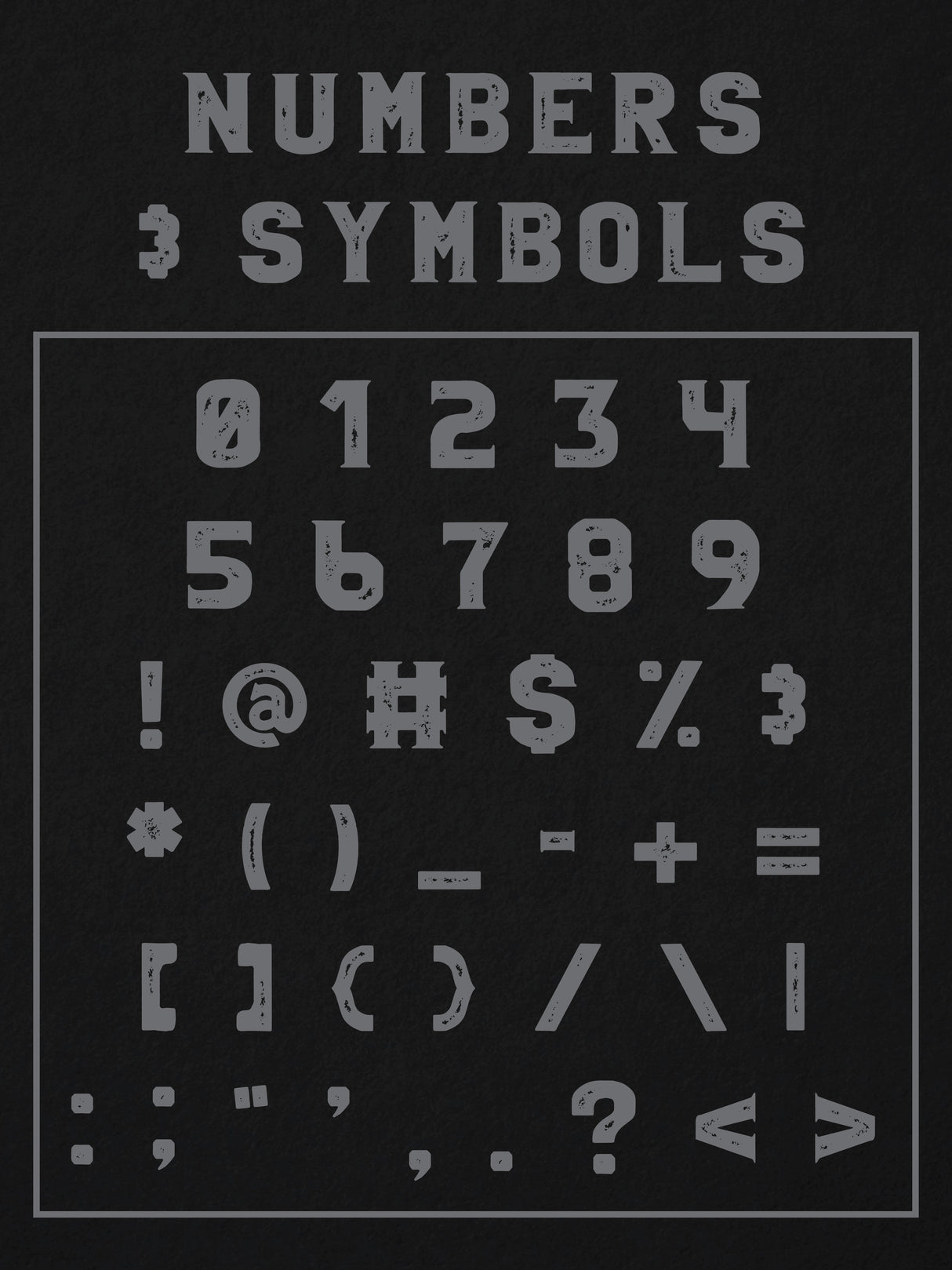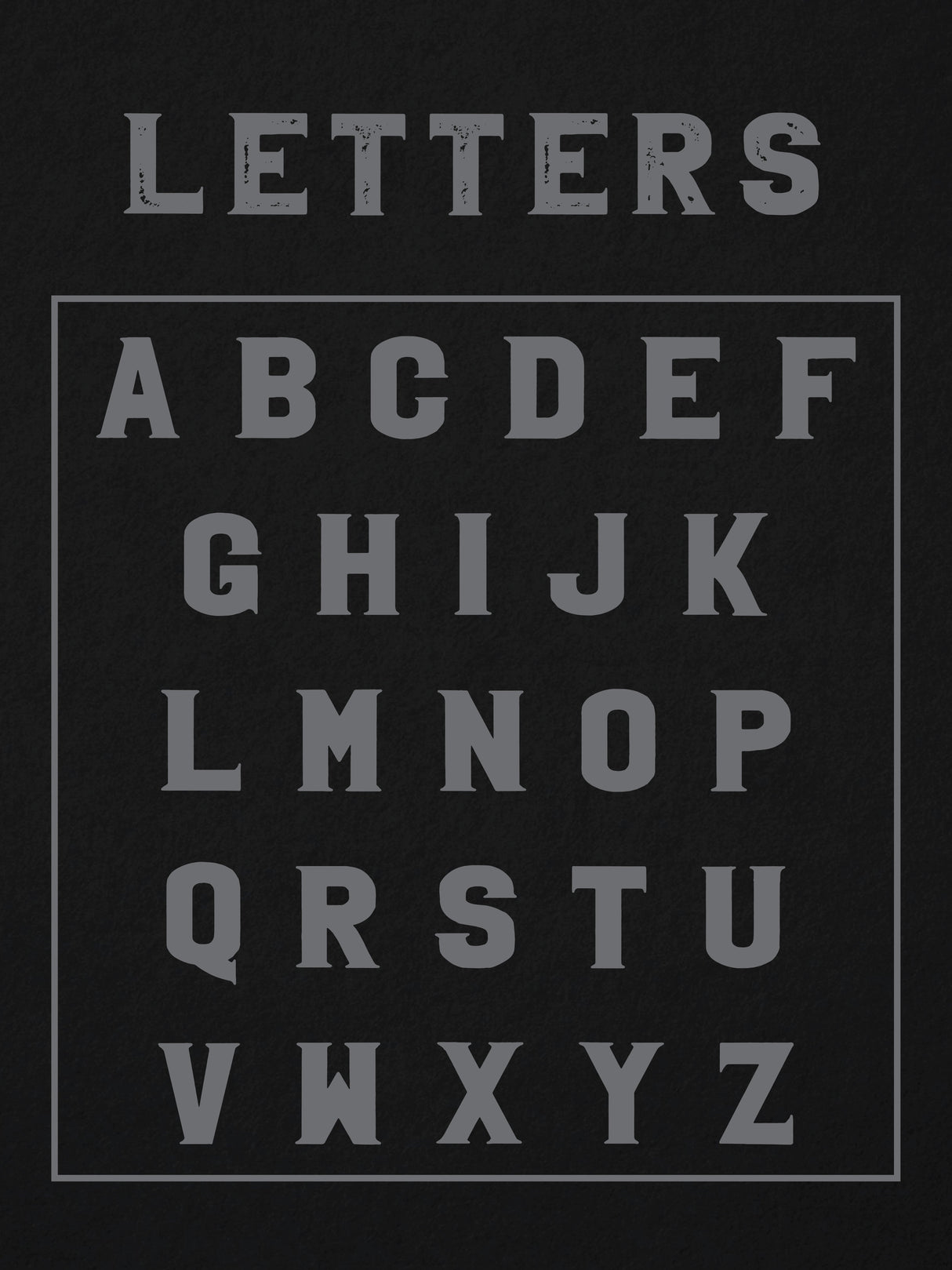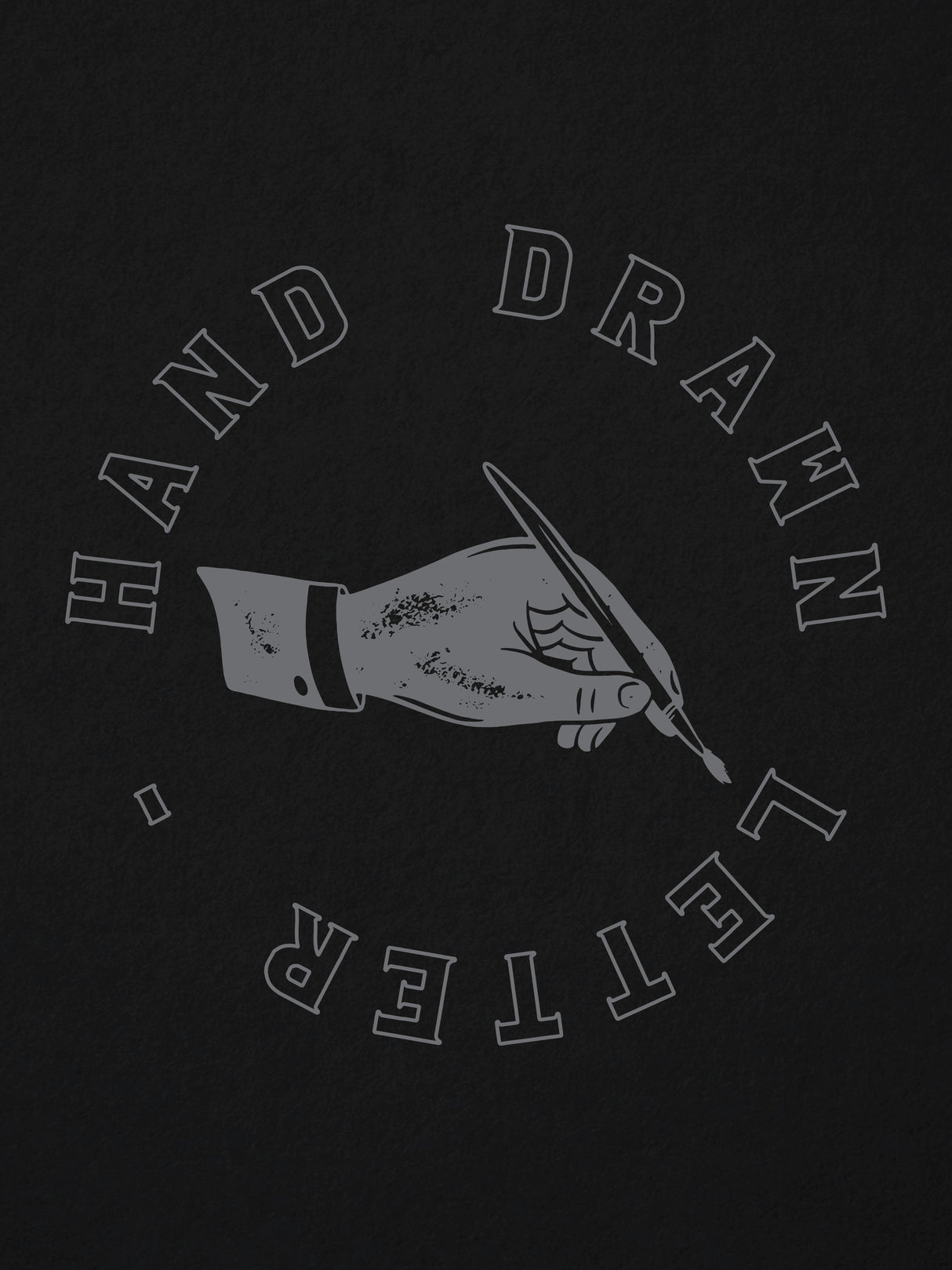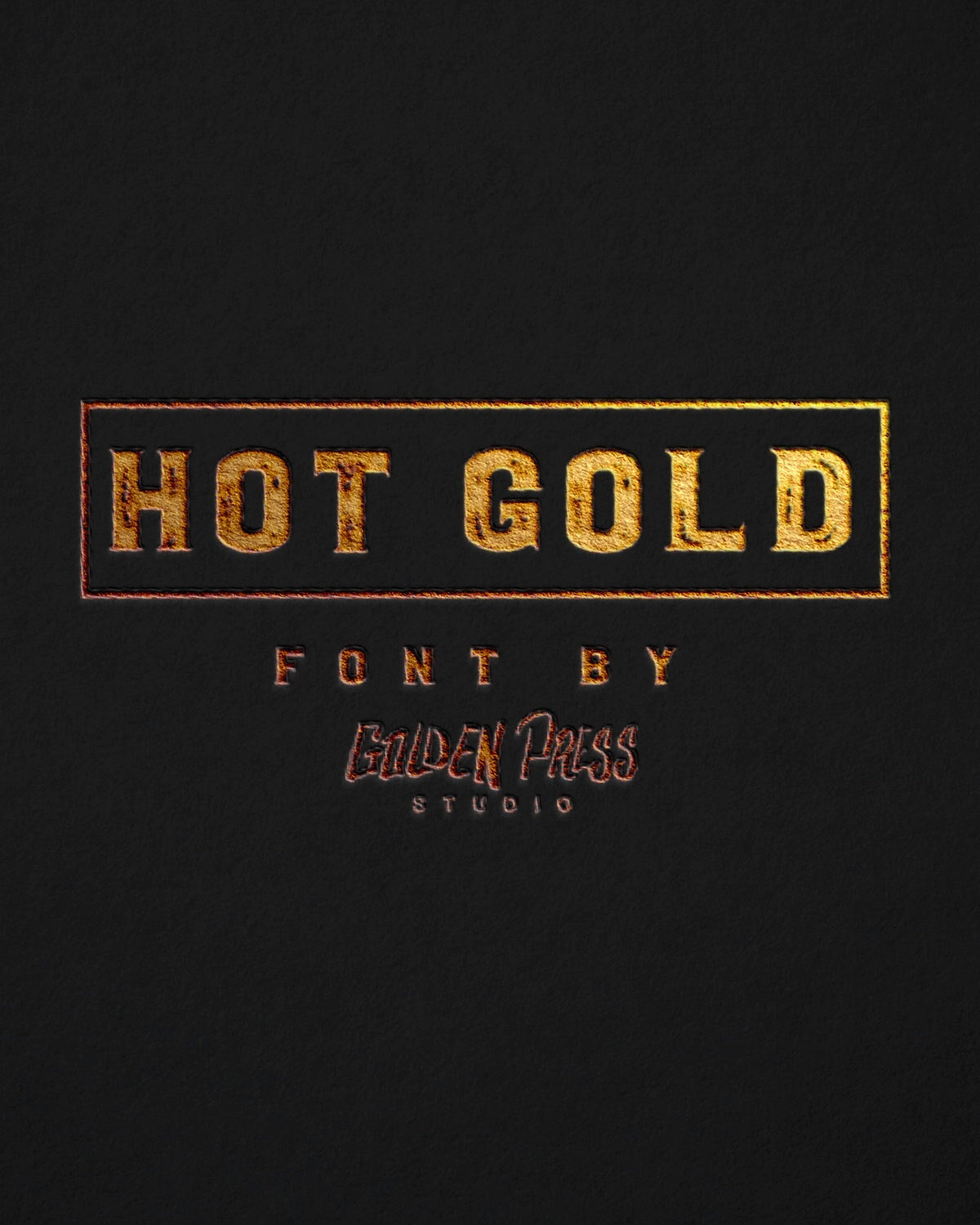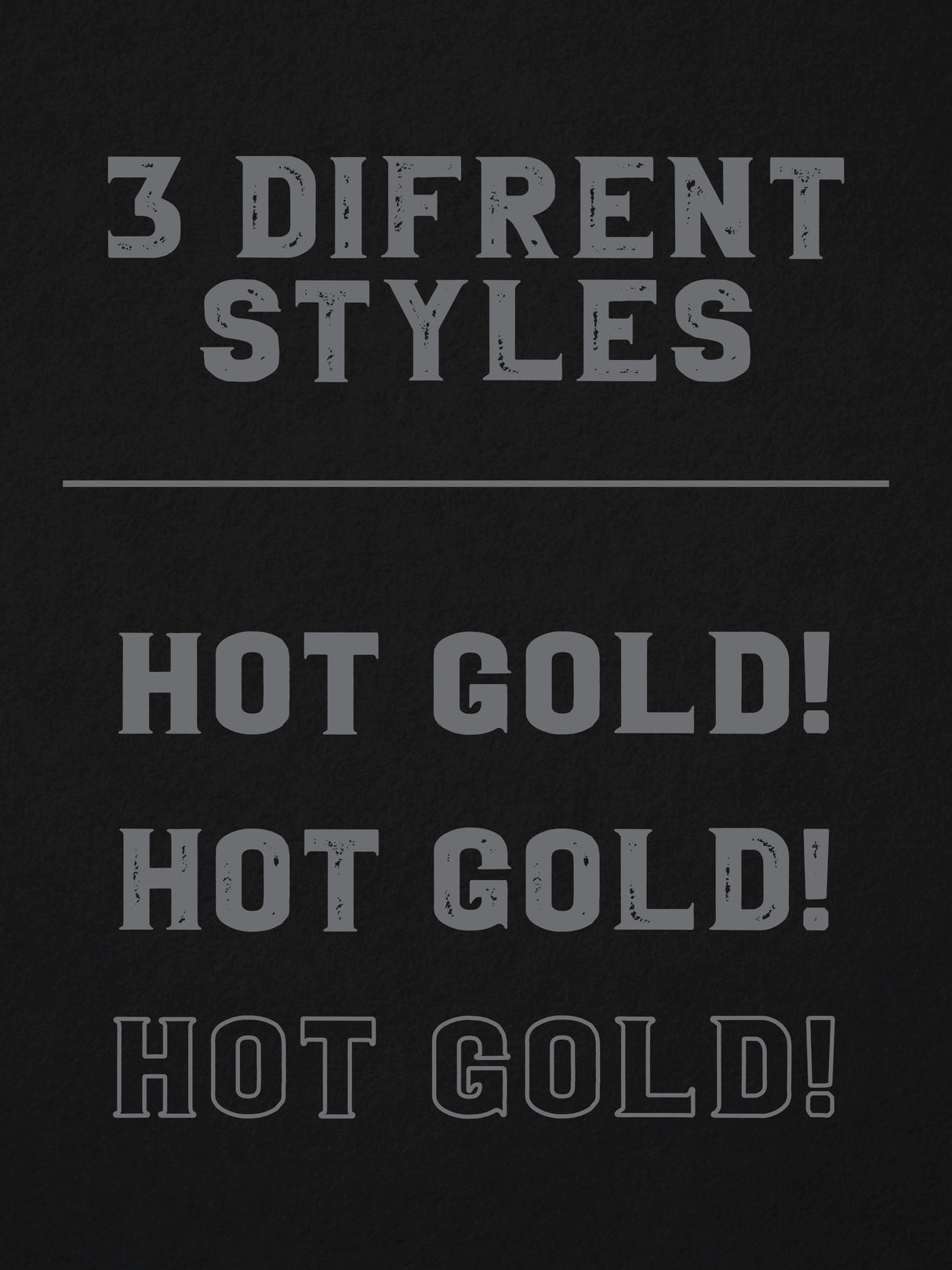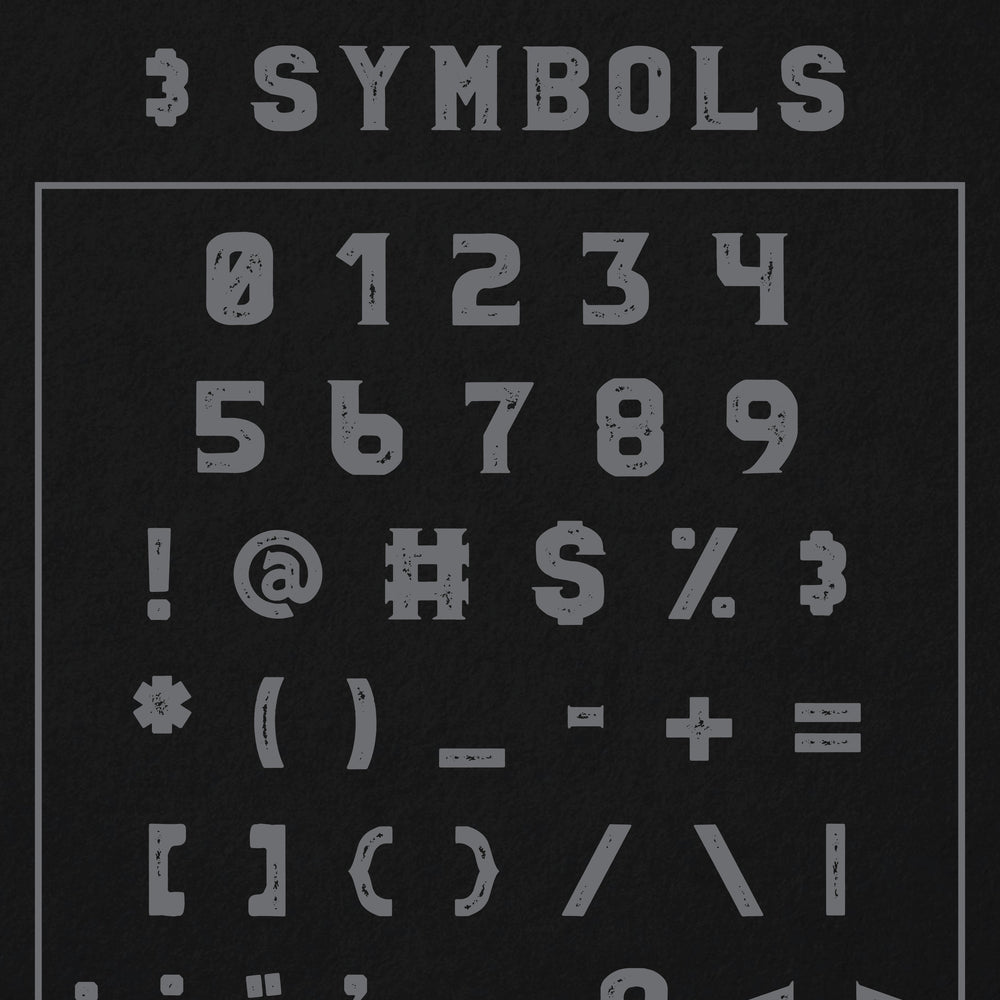
Hot Gold Font (Download Only)
HOT GOLD is a bold seriffed font offered in 3 different styles. OUTLINED, TEXTURED, and SOLID.
FEATURES
• Includes 3 different font styles
• All letters, numbers, and symbols are included